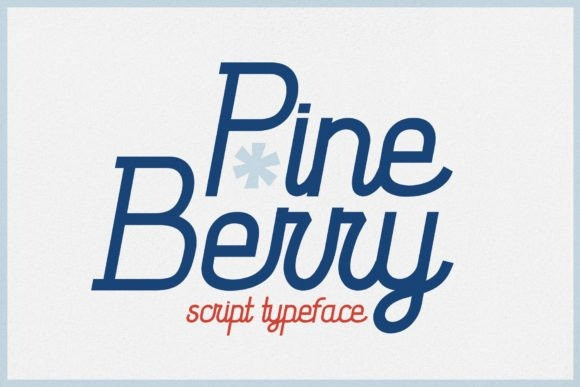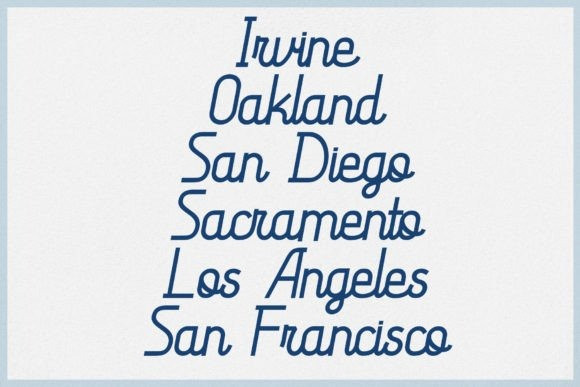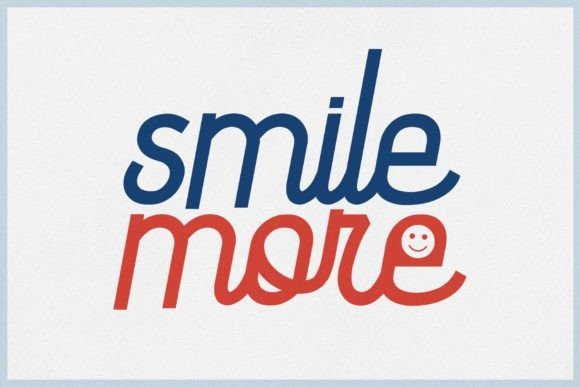
Pineberry Font
Pineberry is handmade cursive typeface inspired by 1960-1970s graphic design. The font has a playful/lighthearted personality that shines when used in packaging, book covers, wedding invitations, clothing brands, vintage designs, and more. Its beautiful mono-weight curvilinear forms serve as attention-grabbing eye candy.